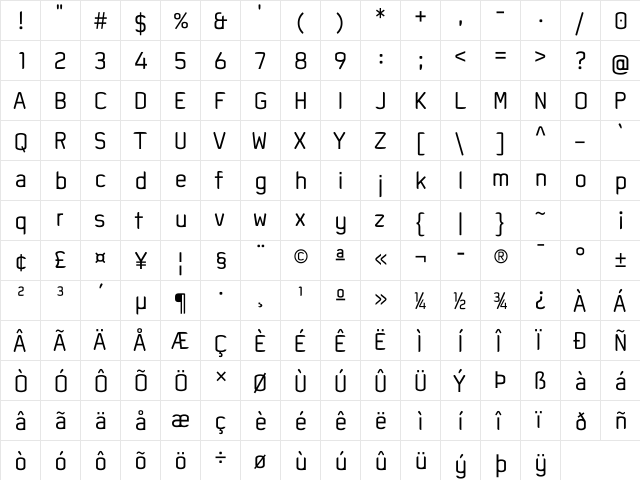
Lux-Montag Regular
Design Context for Lux-Montag Typeface
Lux-Montag takes a measured approach to typography — its balanced proportions and neutral character make it a reliable workhorse for both digital and print work.
Pro Tip: Use Lux-Montag in both headline and body roles to test its range before committing to a single application.